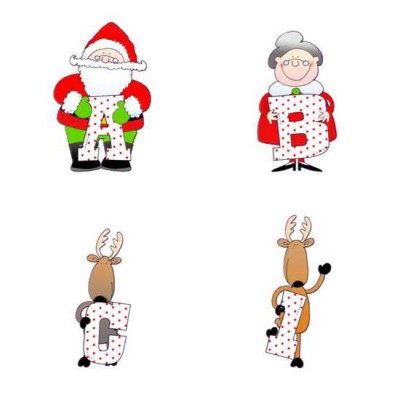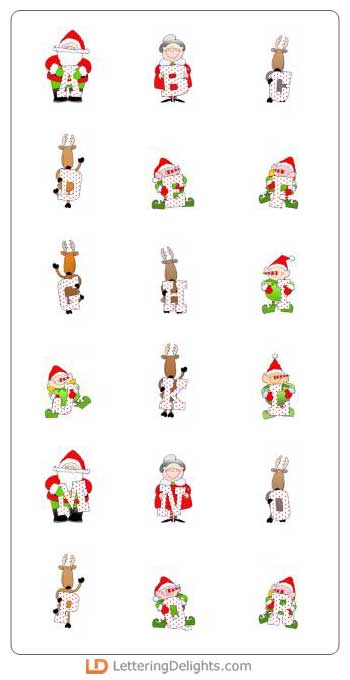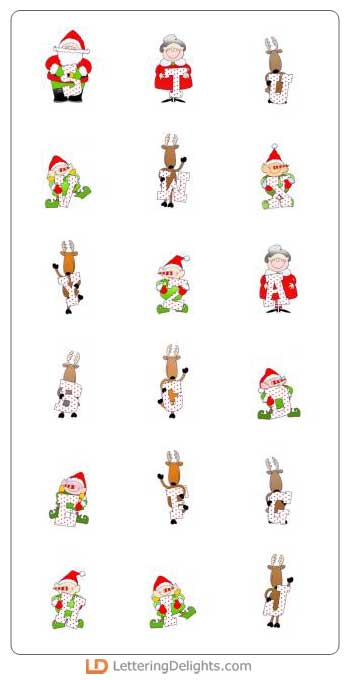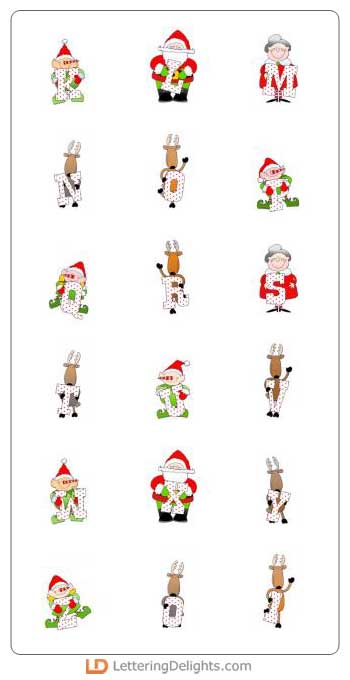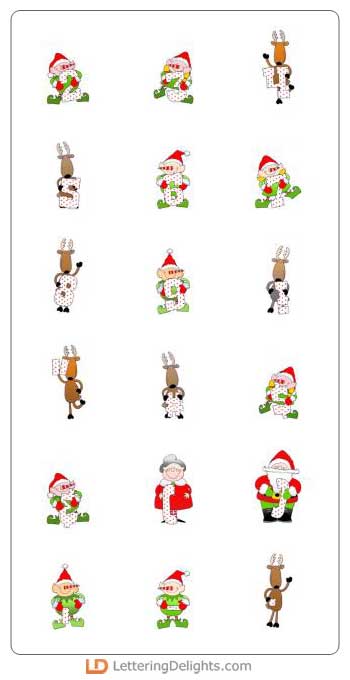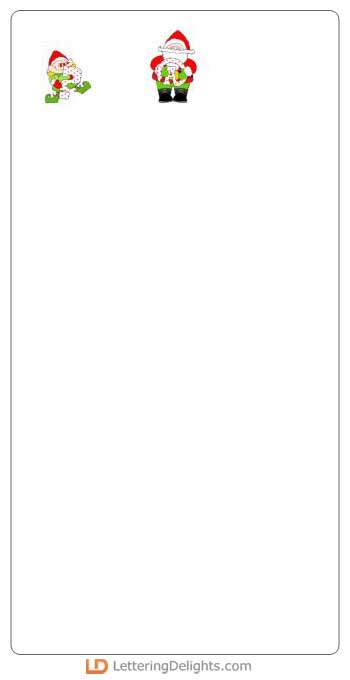
The North Pole is a busy place and requires a lot of help. Good thing Santa has all his helpers! You will love this Christmas style alphabet. It has a matching Journaling Delight set.